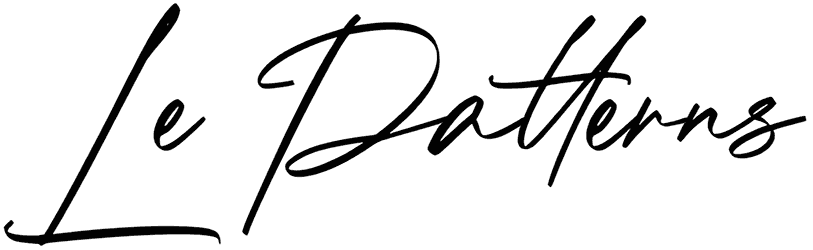
Le Patterns Font
Among the many handwriting and signature fonts we have, the Le Patterns font is very close to the actual handwriting of a real calligrapher. In this signature font, the uppercase letters are much larger than the lowercase letters, and this contrast shows a certain beauty in the sentences.
Even though this font does not include numbers, it is still a great choice for fashion magazines, t-shirt designs, creative caption ideas, and Instagram photos.